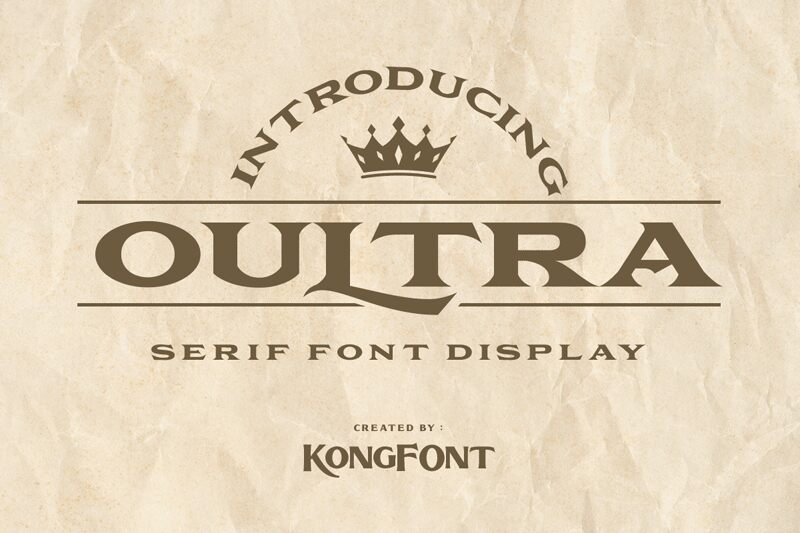
Oultra
Oultra font by Kong Font is a bold, expanded, retro display typeface with geometric influences and classic elegance. Despite being vintage-inspired, its letters carry sophisticated appeal and modern versatility. And as they draw the eye with their strong presence, they transform the designs that use them.
Free display uses can be endless when combining Oultra font's uppercase and lowercase characters: posters for broad viewing purposes or headed papers for personalized ones, logotypes or merchandise designs (T-shirts), news reports about developed projects, etc. The font can also be applied to artworks focusing on sports or literature as it has influences from both worlds!